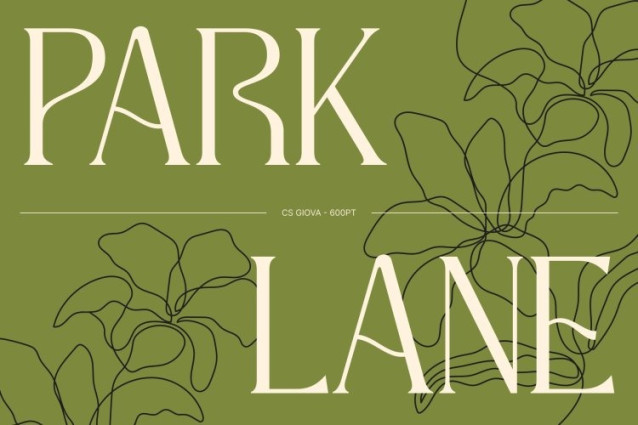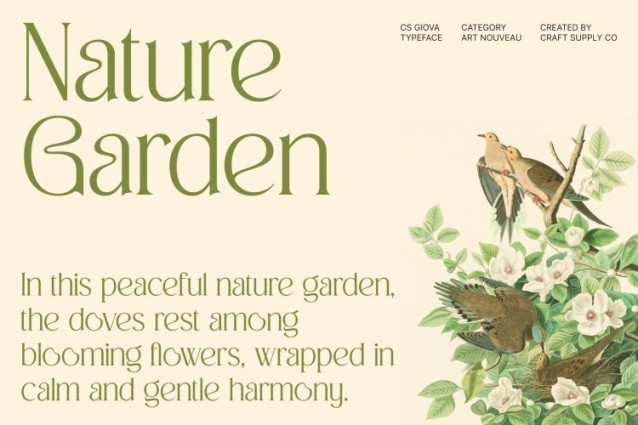
CS Giova Font
CS Giova Font This is a modern Art Nouveau display font defined by smooth organic lines and graceful movement. Inspired by the flowing aesthetics of classic Art Nouveau and reimagined through a contemporary lens, this font delivers an elegant and fresh visual presence. Its expressive curves and stylish structure create a sophisticated tone that feels artistic, refined, and visually captivating.
Organic Forms with Elegant Detail
The beauty of lies in its organic letterforms and fluid transitions. Each character is shaped with smooth, natural curves that evoke harmony and balance, giving the font a soft yet confident personality. These elegant details add a sense of craftsmanship and artistry, allowing the font to stand out while maintaining clarity in display use.
Fresh Expression with Modern Sensibility
This font blends decorative elegance with modern refinement, resulting in a font that feels both timeless and current. Its Art Nouveau influence brings a sense of luxury and creativity, while the clean execution ensures it remains fresh and versatile for contemporary design. This balance makes ideal for expressive layouts that require beauty without excess.
Perfect for Editorials, Luxury Branding, and Fashion
Designed for high-impact and sophisticated applications, this font is perfect for editorial layouts, luxury branding, fashion campaigns, packaging, and premium visual identities. Its elegant display style enhances headlines and key messages with artistic flair and refinement.